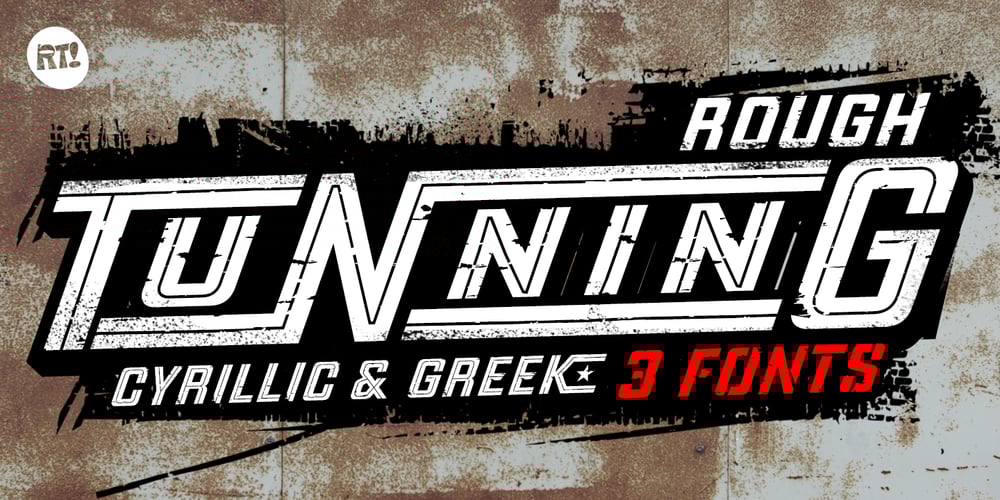
Tunning Rough
Tunning Rough font
Tunning Rough Font Family was designed by Rodrigo Araya Salas, Bruno Jara Ahumada and published by RodrigoTypo. Tunning Rough contains 3 styles and family package options. Tunning Rough is an extension of “Tunning Pro” in this font that contains an inline version Rough (001), Normal Rough(002) and Rough Stencil, as well as containing Cyrillic and Greek alphabet with many alternatives(898 Glyphs) perfect for action titles!